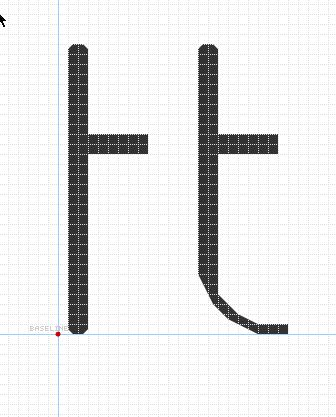
Well done elegant font. Lowercase t could be improved, and the space between words should be wider.
Oh, good point! I've fixed the space between words - thank you! Not sure what to do about the 't' though...
Composites would help you to get smoother curves ... have a look at http://fontstruct.com/fontstructions/show/all_composites_saved_in_my_bricks and http://fontstruct.com/fontstructions/show/all_bricks_6
My suggestion for the 't' is to perhaps use the 'f' upsidedown ...
@p2pnut - thank you! The composites are so helpful - I really appreciate it, and I like the change to the t, I think I'll update it!